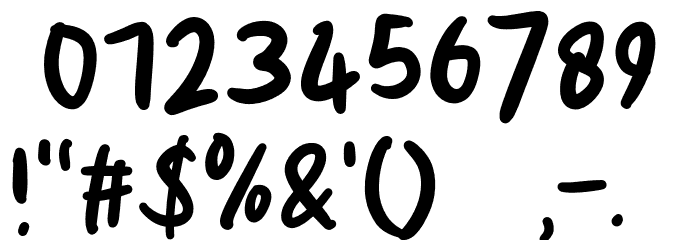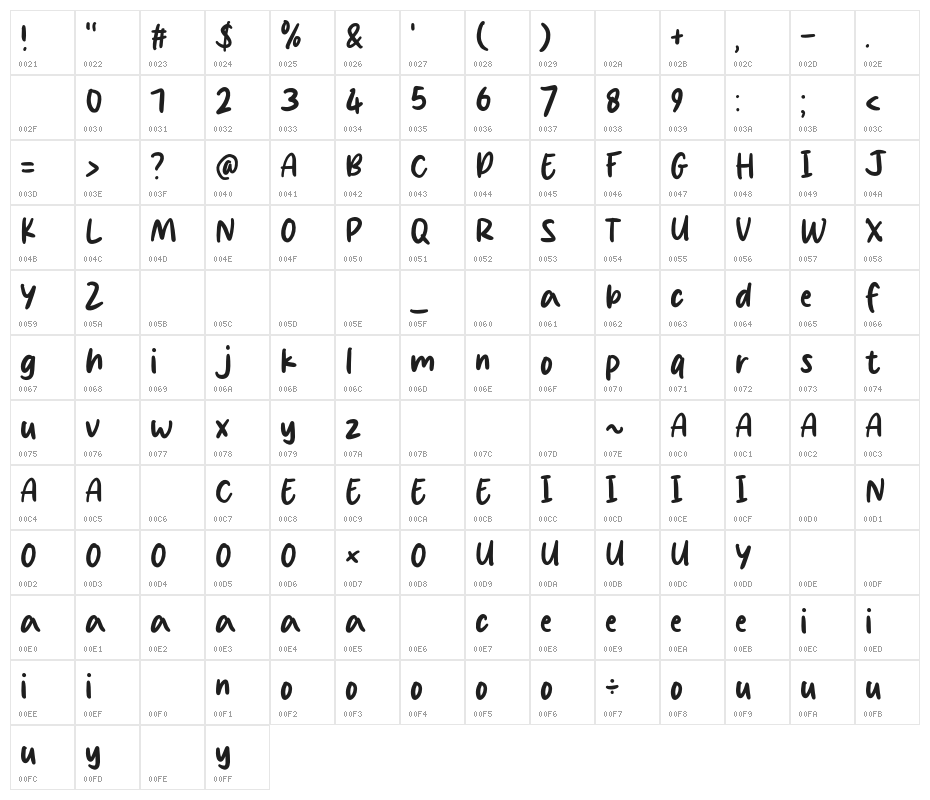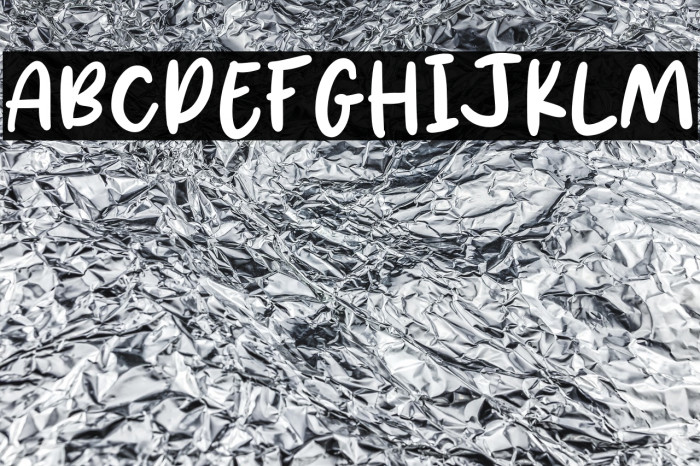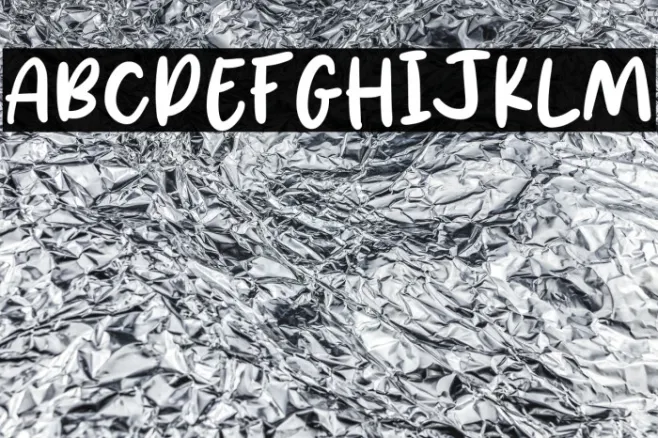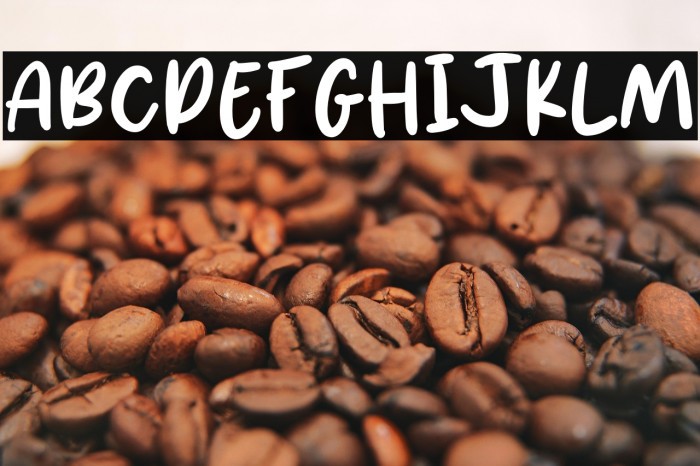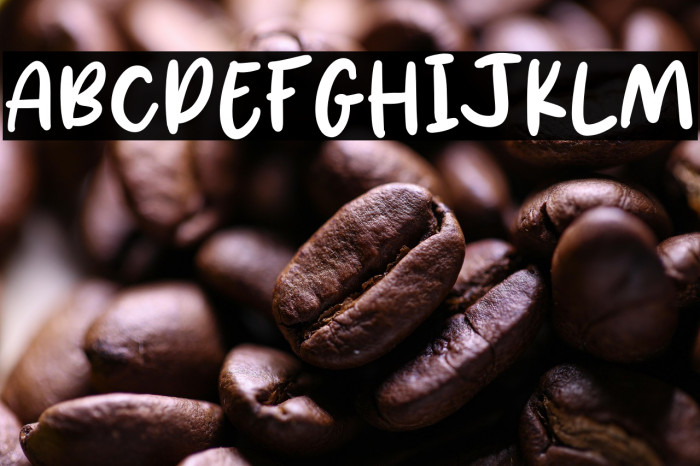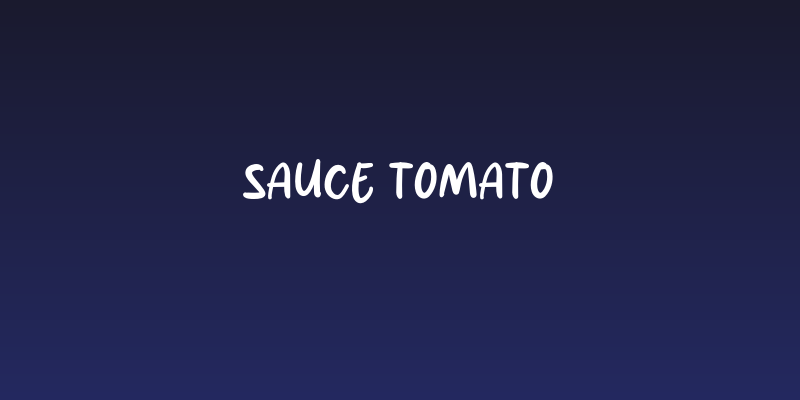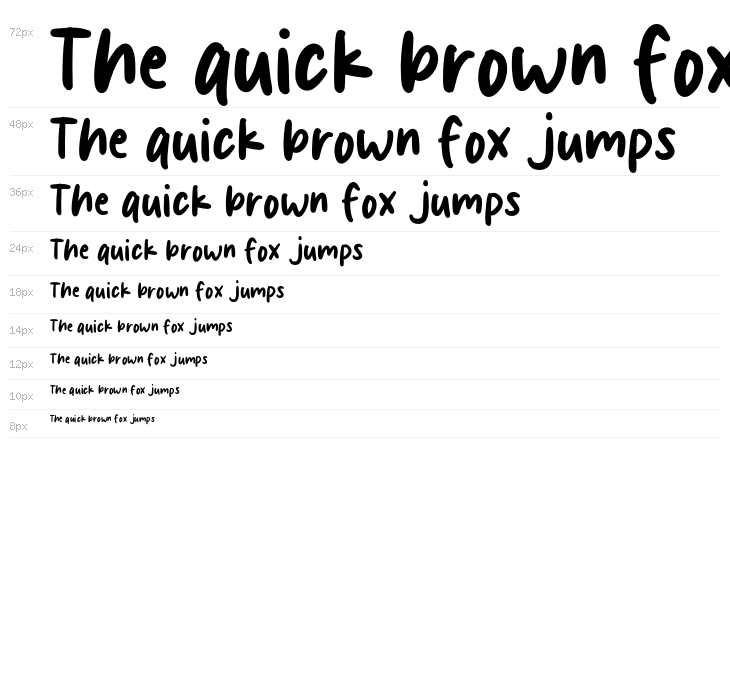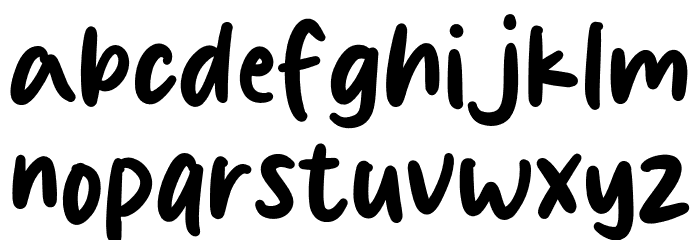
Sauce Tomato Font
Sauce Tomato Description
This font exhibits a playful and casual handwritten style, characterized by its bold and rounded strokes. The letters are slightly slanted, giving it a dynamic and lively appearance. The uppercase and lowercase letters maintain a consistent flow, with smooth curves and a friendly demeanor. The numerals and special characters are equally expressive, complementing the overall aesthetic. This font is perfect for projects that require a personal touch or a sense of informality, such as greeting cards, posters, or social media graphics.
| Proposed Projects | Ideal for greeting cards, posters, social media graphics, and informal branding. |